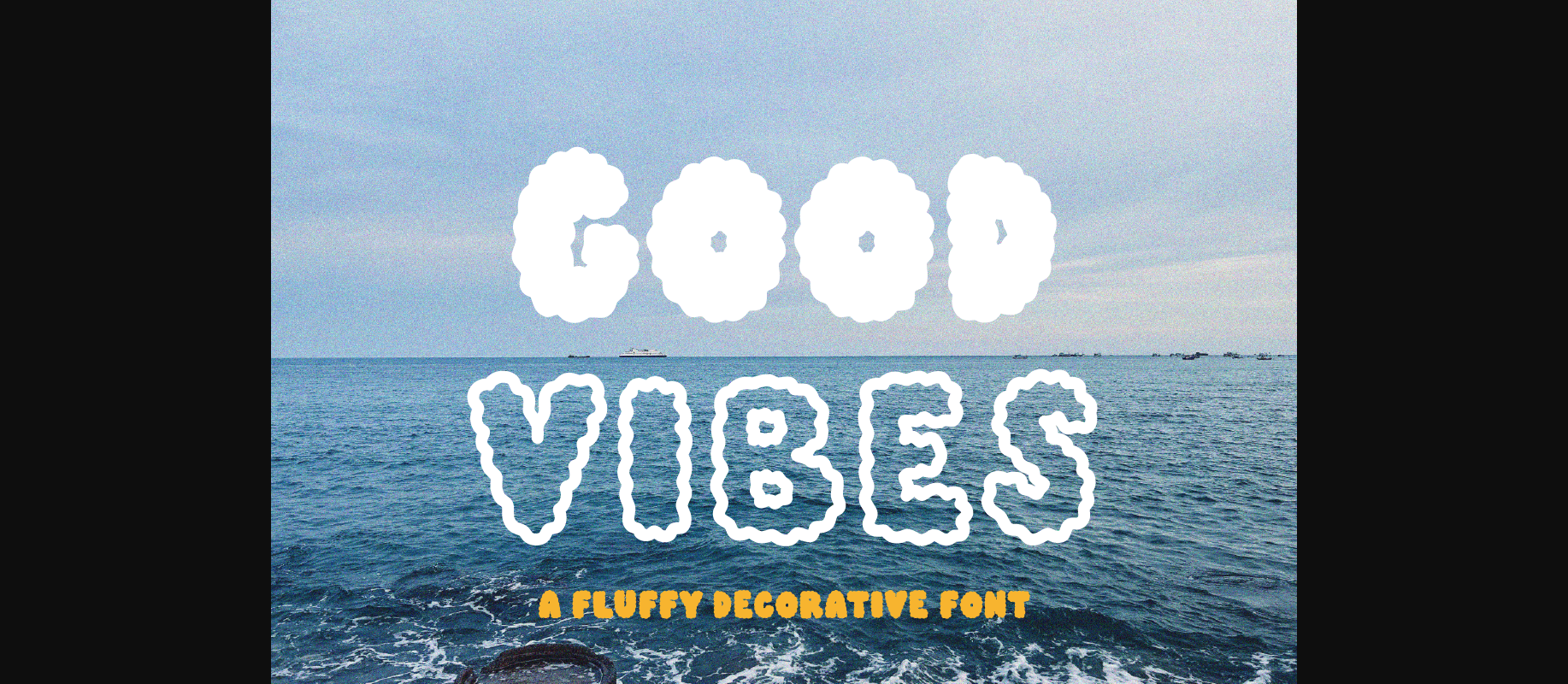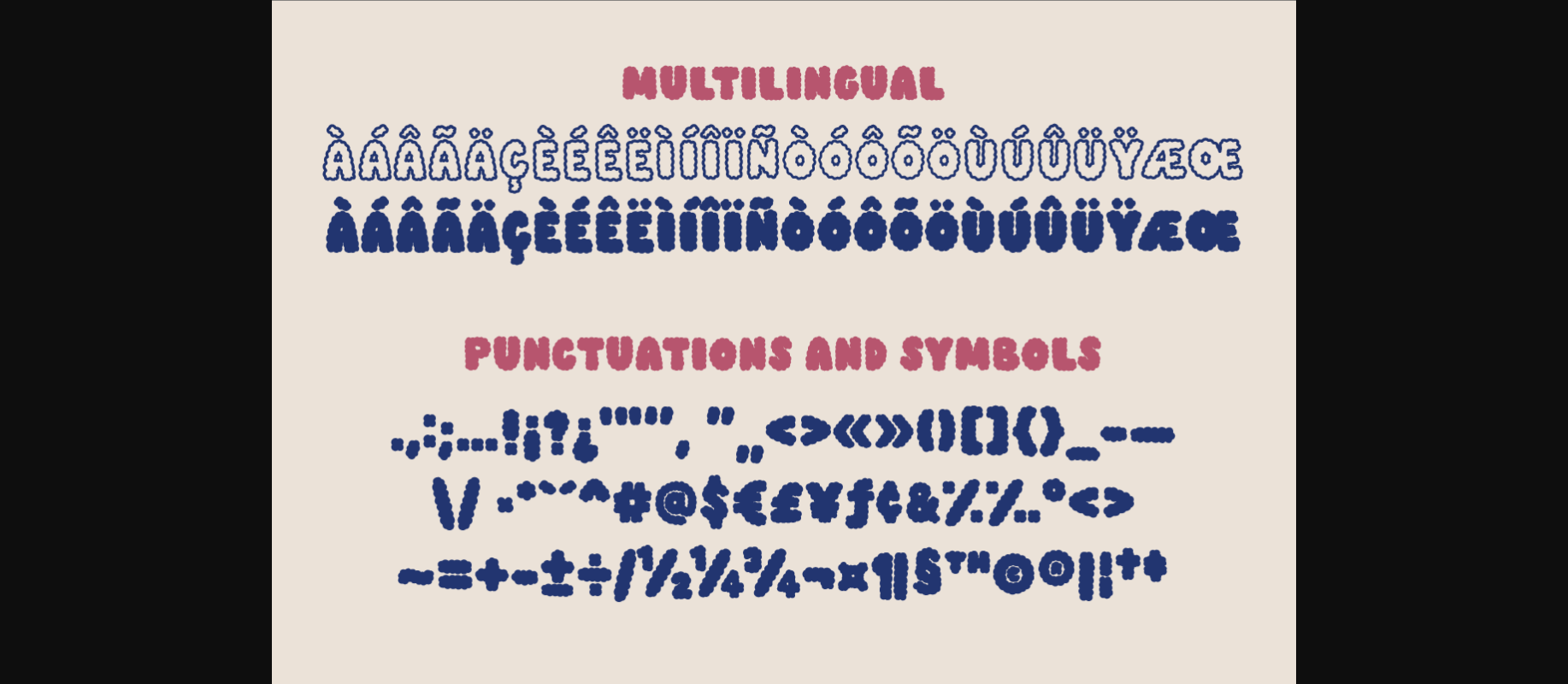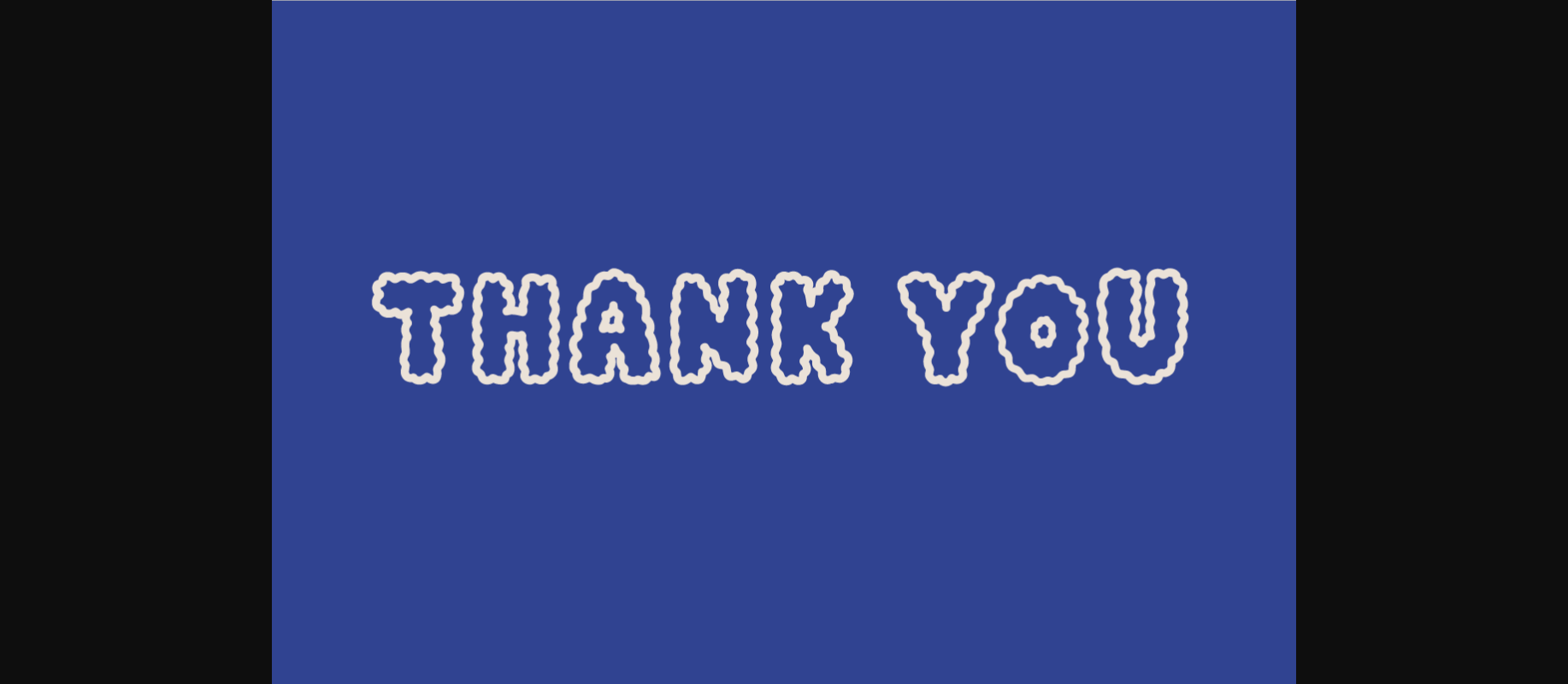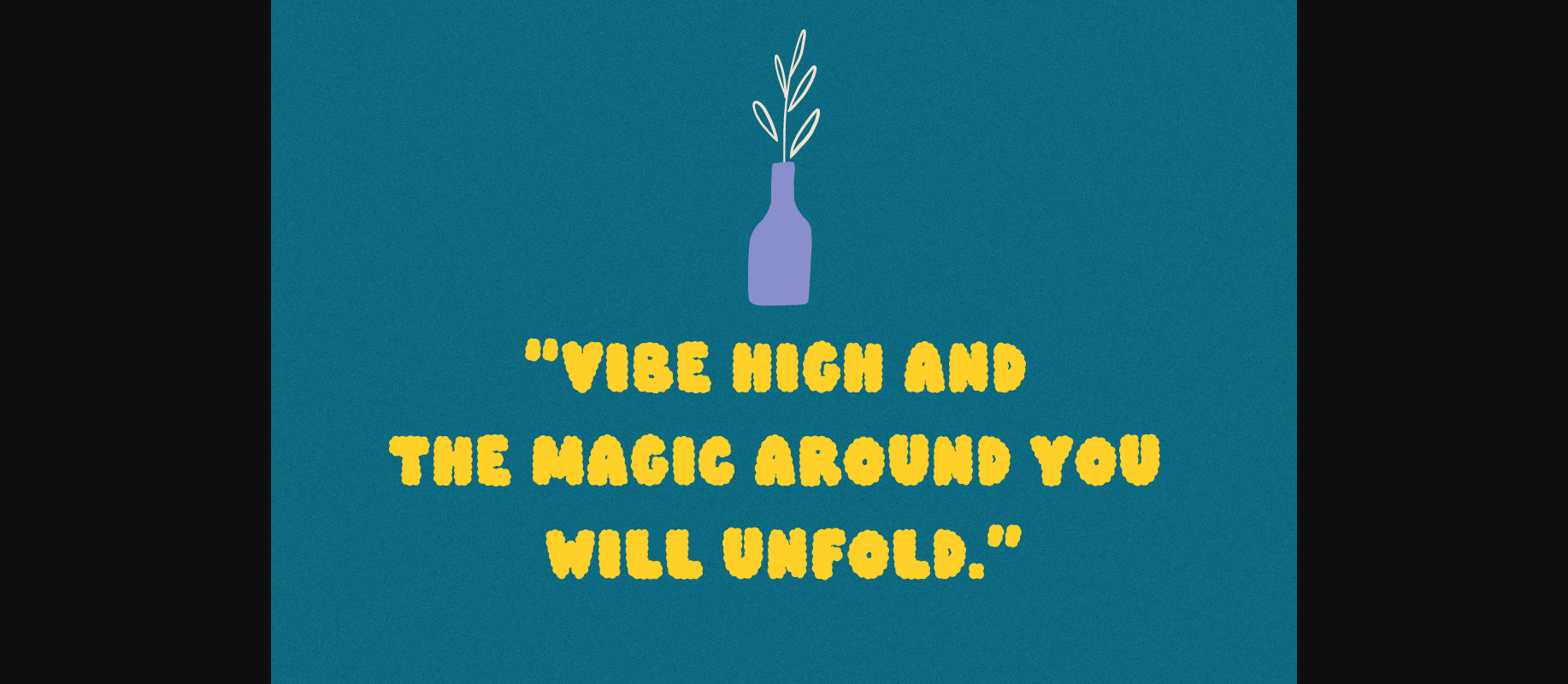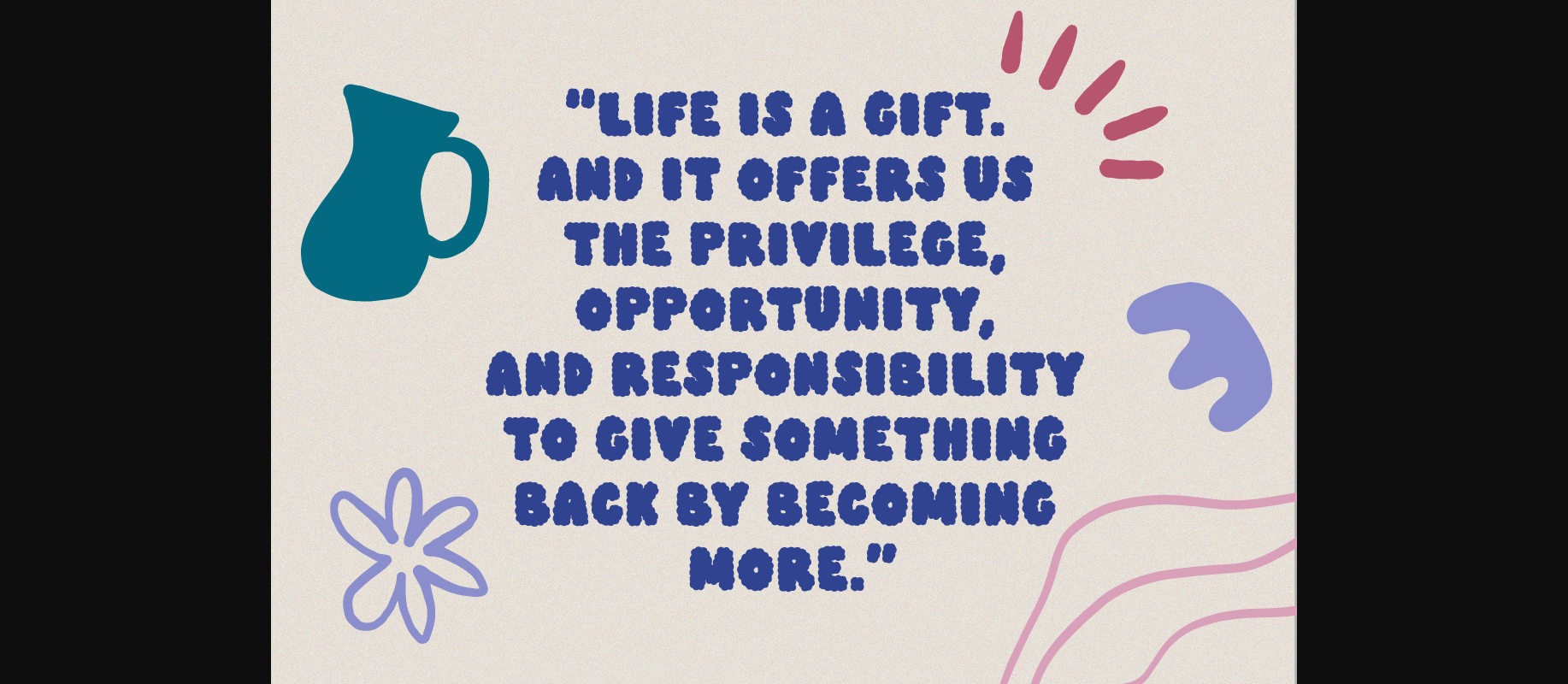
Good Vibes Font
About Good Vibes Font
GOOD VIBES is a fluffy decorative font. Perfect for circuit projects, shirts, retro designs, invitations, mugs, stickers, playful quotes, creating posters, logos, greeting cards, packaging, decorating the illustrations and so much more!